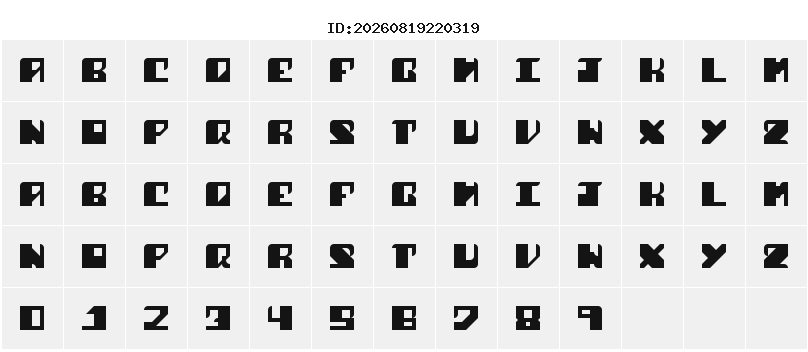
Shark Fins Preview
• Font Name: Shark Fins
• Font ID: FontStruct Shark Fins
• Full Font Name: Shark Fins Regular
• PostScript Name: Shark-Fins
• Copyright: Copyright devburg 2010 “Shark Fins” is based on “Shark Week” by “devburg” (http://fontstruct.com/fontstructors/devburg)
• Designer: devburg
• Description: “Shark Fins” was built with FontStruct “Shark Fins” is based on “Shark Week” by “devburg” (http://fontstruct.com/fontstructors/devburg)
About Shark Fins.ttf